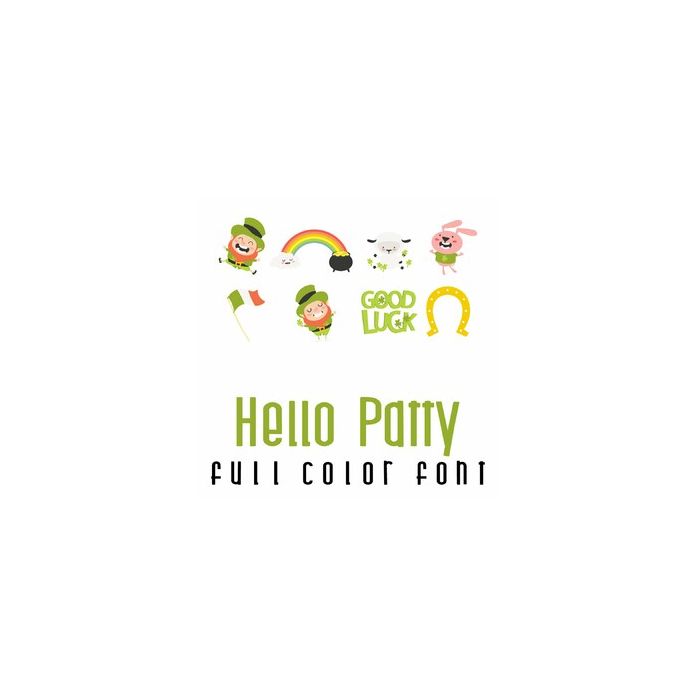
This adorable full-color doodlebat font features 26 St. Patrick-themed imagery. Perfect for cards, crafts, gifts, decor, scrapbook pages, planner stickers, and more!